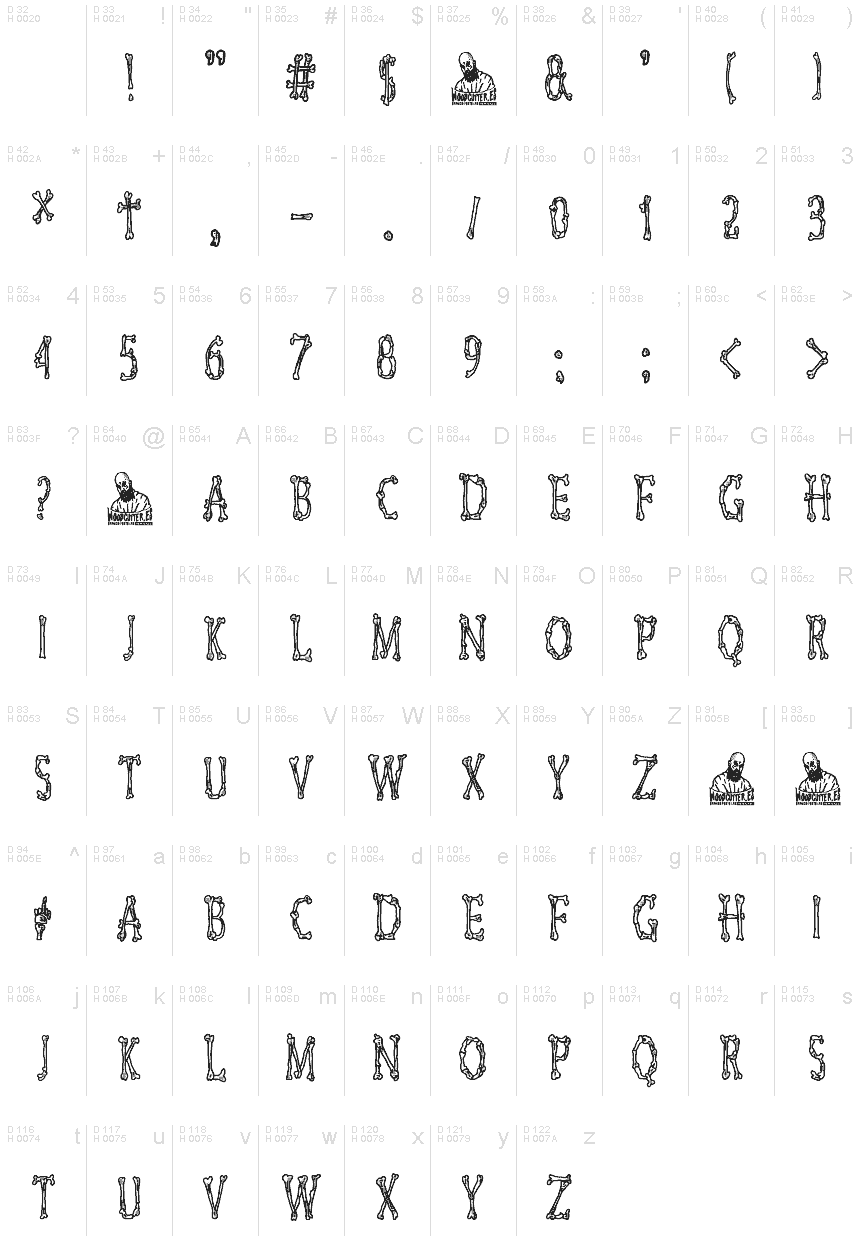
Skeletor Funny
Skeletor Funny font by Woodcutter is a decorative display font with a condensed structure. Designed with a Halloween theme in mind, the letters have bone-like elements used to create each of them. Smooth curves and uniquely decorated characters allow the typeface to express its novelty style and quirky appearance.